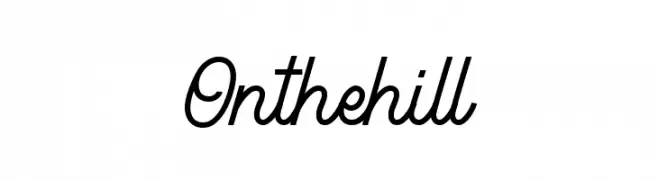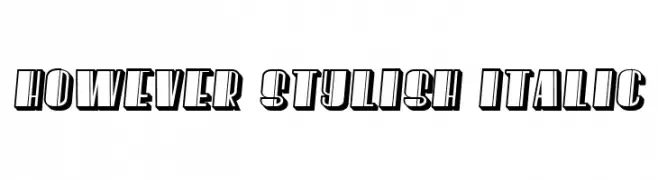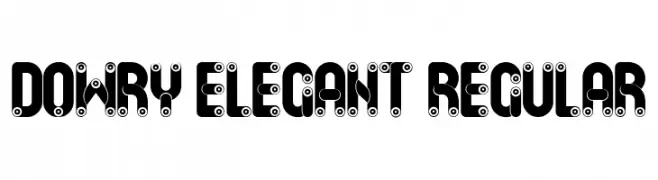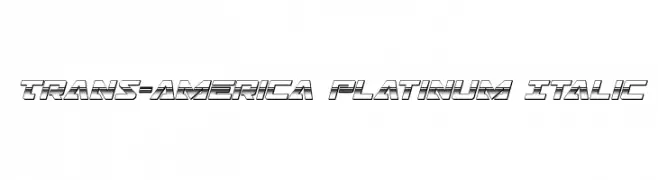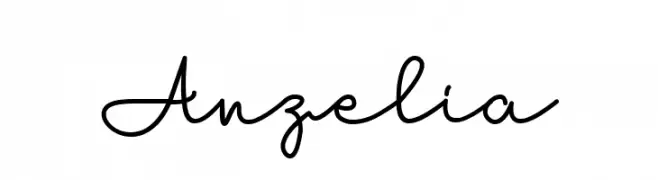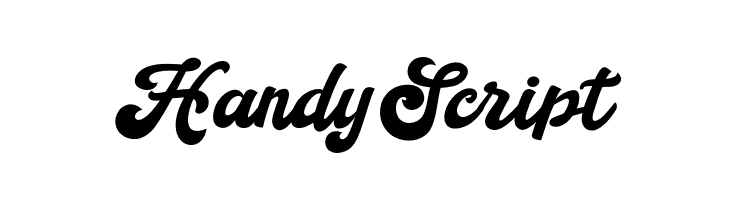
A display font using illustrated portraits for each character.
A cursive, elegant font with smooth, flowing strokes.
Bold, italic, fragmented decorative font.
A modern, semi-condensed sans-serif font with clean lines and excellent readability.
A bold, italicized 3D font with strong outlines and a modern, dynamic style.
A bold, decorative font with a mechanical, industrial aesthetic.
A bold, futuristic italic font with a three-dimensional effect and geometric structure.
A charming and elegant script font with fluid, cursive strokes.
A bold, italicized, handwritten-style font with a playful and dynamic appearance.
An elegant, flowing script font with smooth, cursive letterforms.